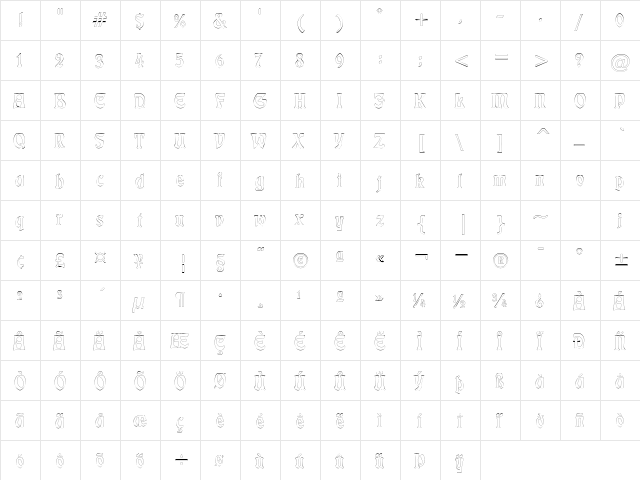
LushlifeOutline Regular Font Preview
LushlifeOutline Regular
Design Context for LushlifeOutline Typeface
LushlifeOutline brings ornamental detail and strong personality to headlines and identities, where visual impact matters more than quiet functionality.
Font Pairing: Pair with a clean neutral sans-serif for body copy to let LushlifeOutline's character lead without overwhelming the composition.
Pro Tip: Treat LushlifeOutline as the centrepiece of your typographic hierarchy. One strong heading set in a decorative face can carry an entire layout.